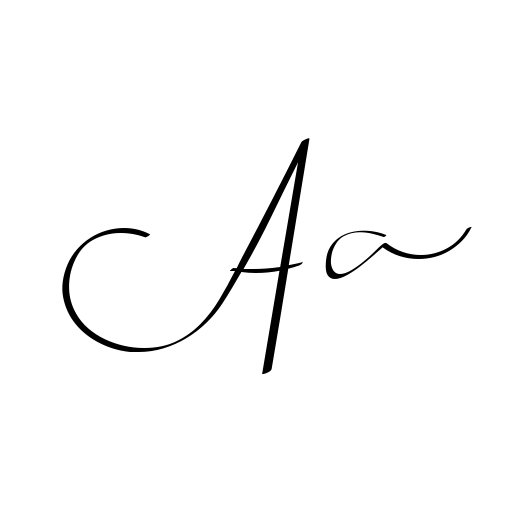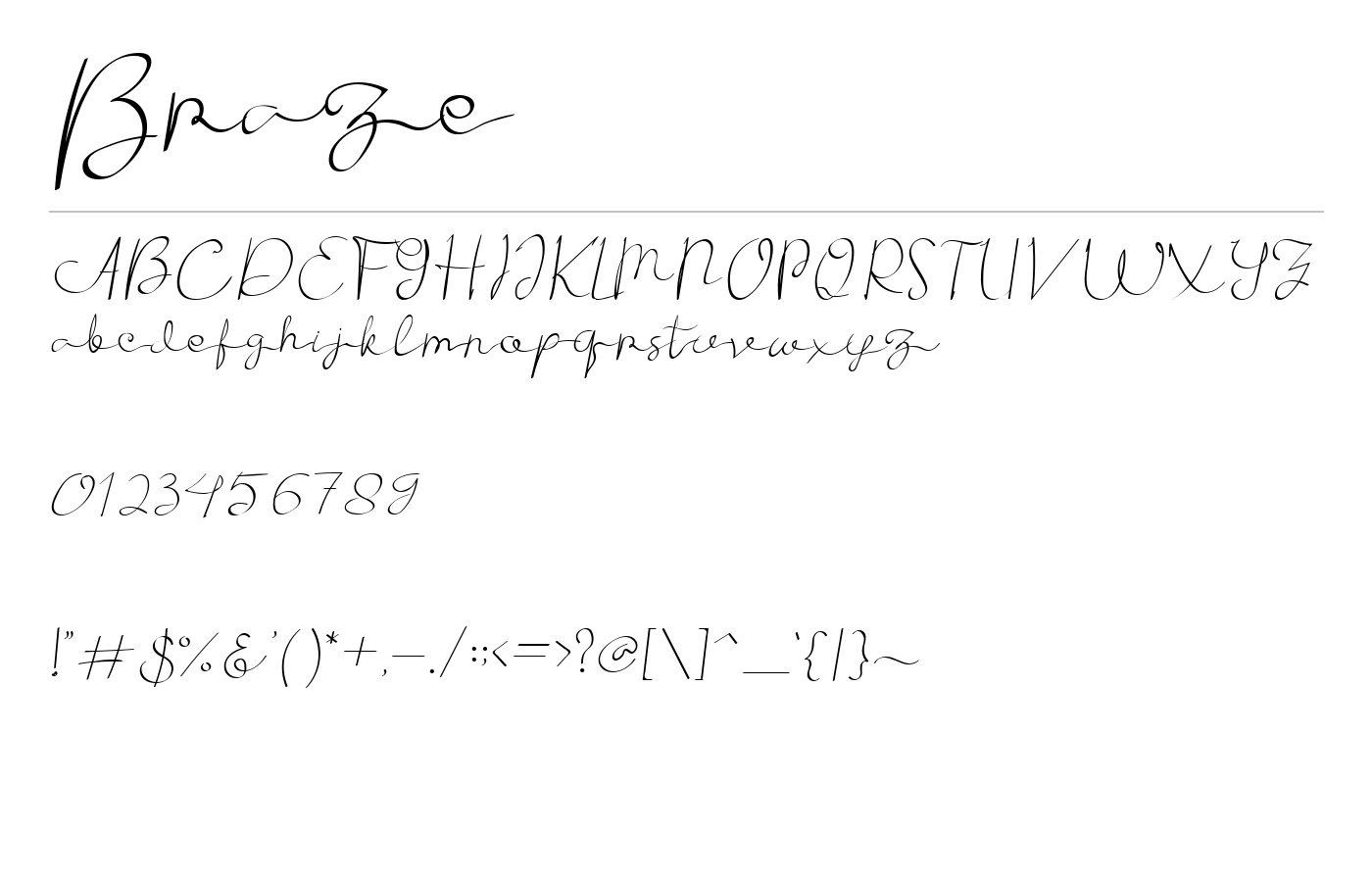
Braze is a delicate, elegant script font featuring thin, flowing strokes that create a hand-drawn, artistic feel. Its light weight and graceful curves make it perfect for sophisticated branding, invitations, and editorial design where a refined and personal touch is desired. This font works best in display settings, adding charm and elegance without overwhelming the overall design.
Braze Font
About Braze Font
| Font family | Braze Font |
| Designer | Fajar Rachmadi P |